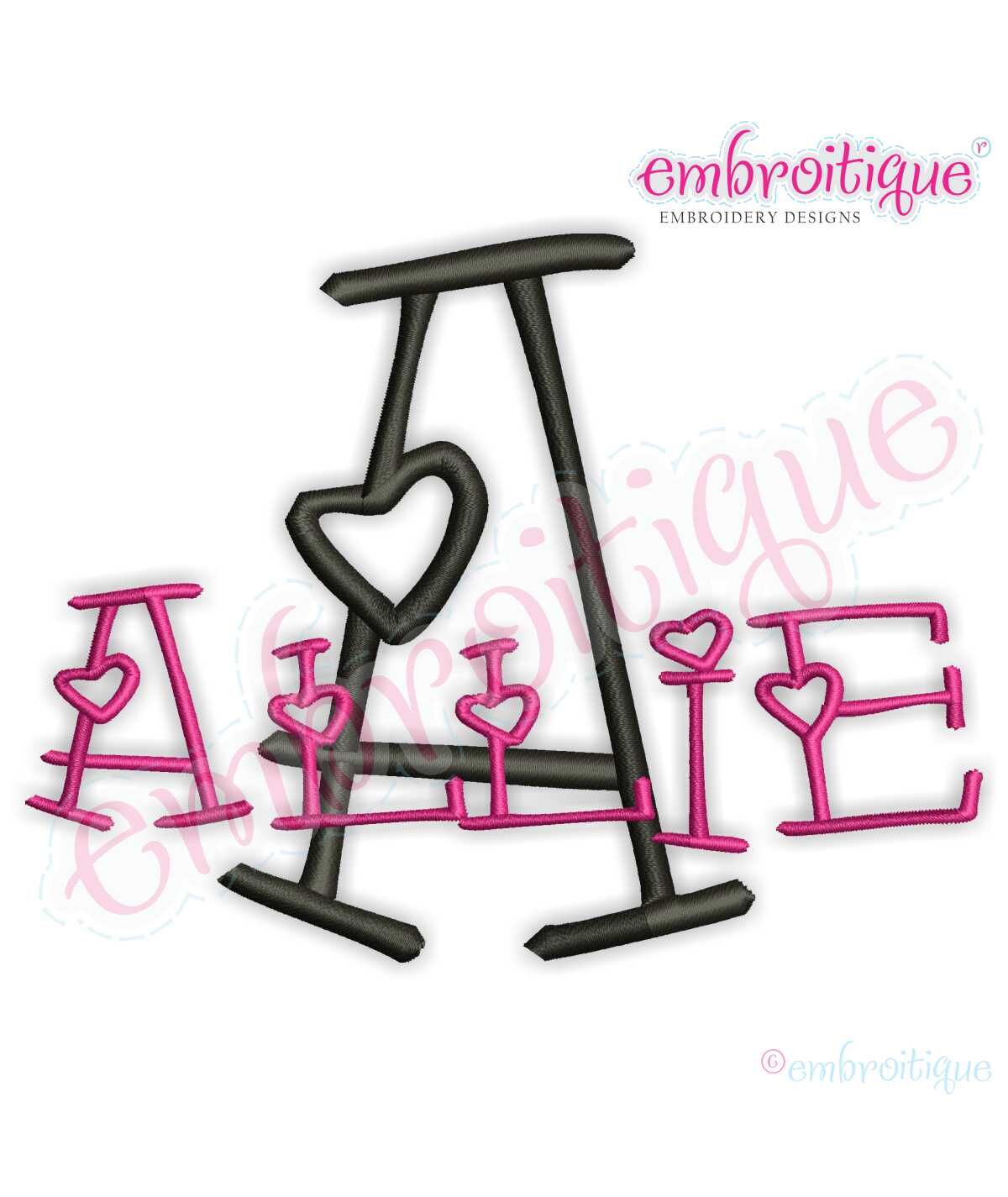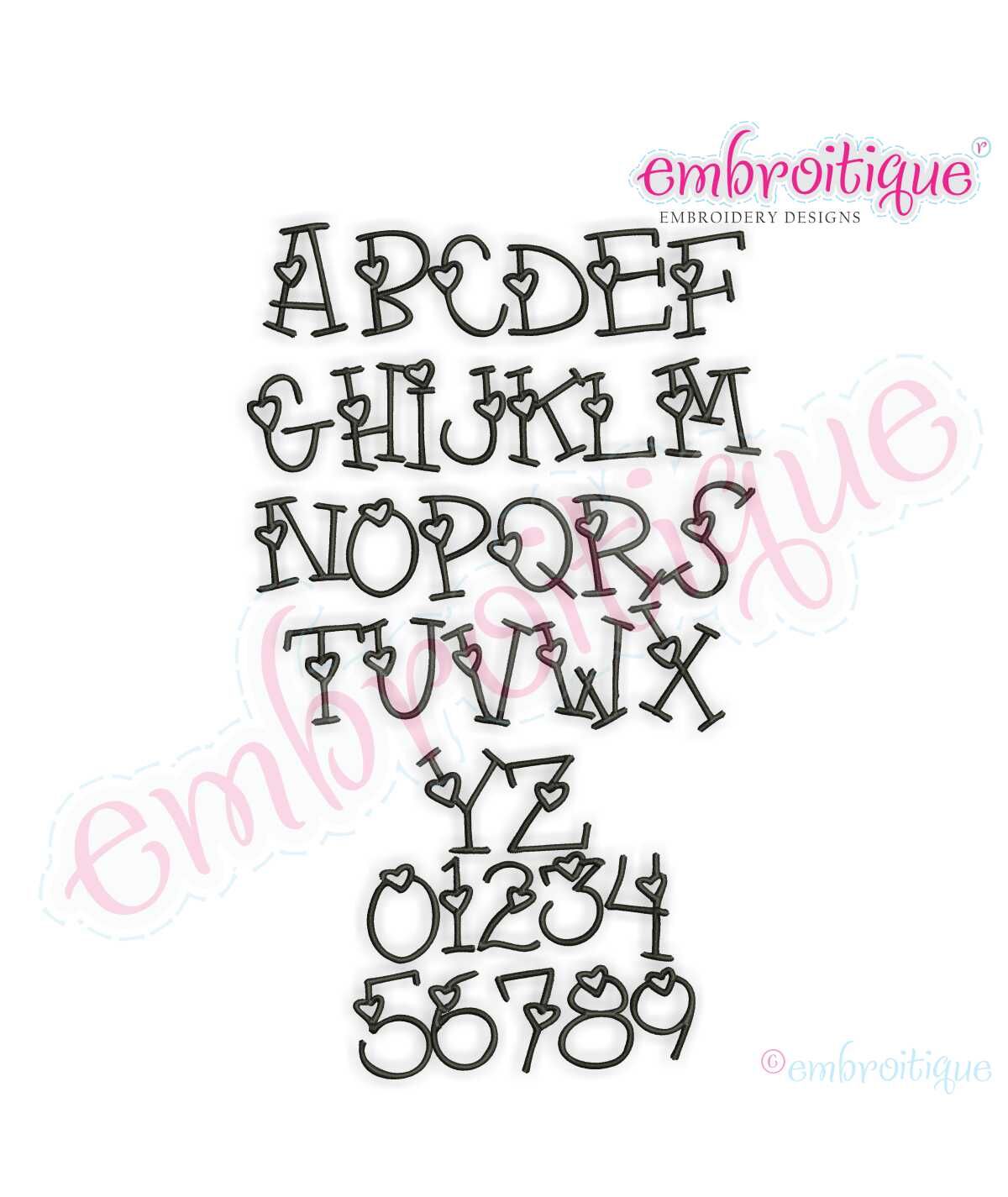
Allie Heart Monogram Set - Perfect for Valentine's Day
A cute whimsical doodled alphabet with hearts. Â Fun for Valentine's day (or every day) projects.
Use this set to add a little extra love to your creation!